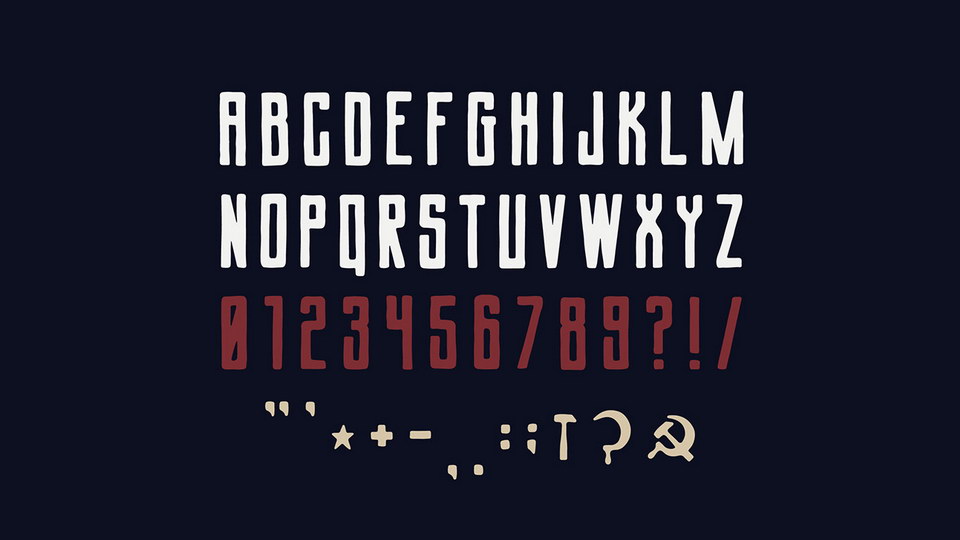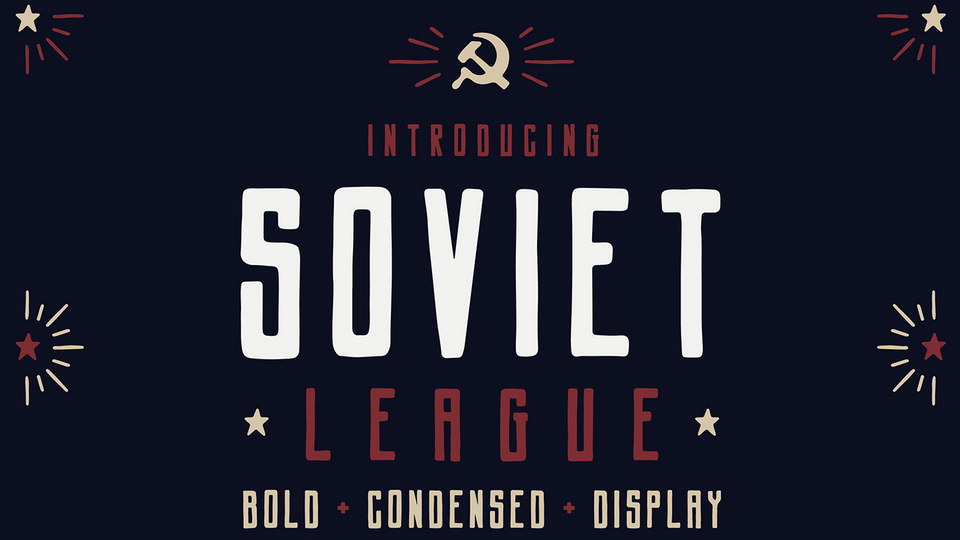
Soviet League Typeface Font
Soviet League Typeface Font is famous for its Russian typeface. This is famous for its constructive typeface and it is listed inside the google fonts. It makes fonts appropriate for posters. The package deal is available in terrific styles: emerald or splatter.it’s miles super for logos, t-shirt designs, and signage.
Its miles the right cutting-edge-day sans-serif with an extended sabon font is a contemporary-day-day gothic sans serif typeface using font fashion. Download Besides, it has an in-depth form of opportunity glyphs, ligatures, and open type abilities, which offer flexibility and sturdy element anywhere its miles positioned. Some splendid well-known emblem font’s picks are saldina font. It’s a prolonged way regularly used inside the print enterprise corporation for magazines and textbooks.
However, on the give up within the manner, hundreds of information have been changed at the way to sharpen the slab serif man or woman. Who introduced on a barely certainly considered truly certainly one of a type interpretation